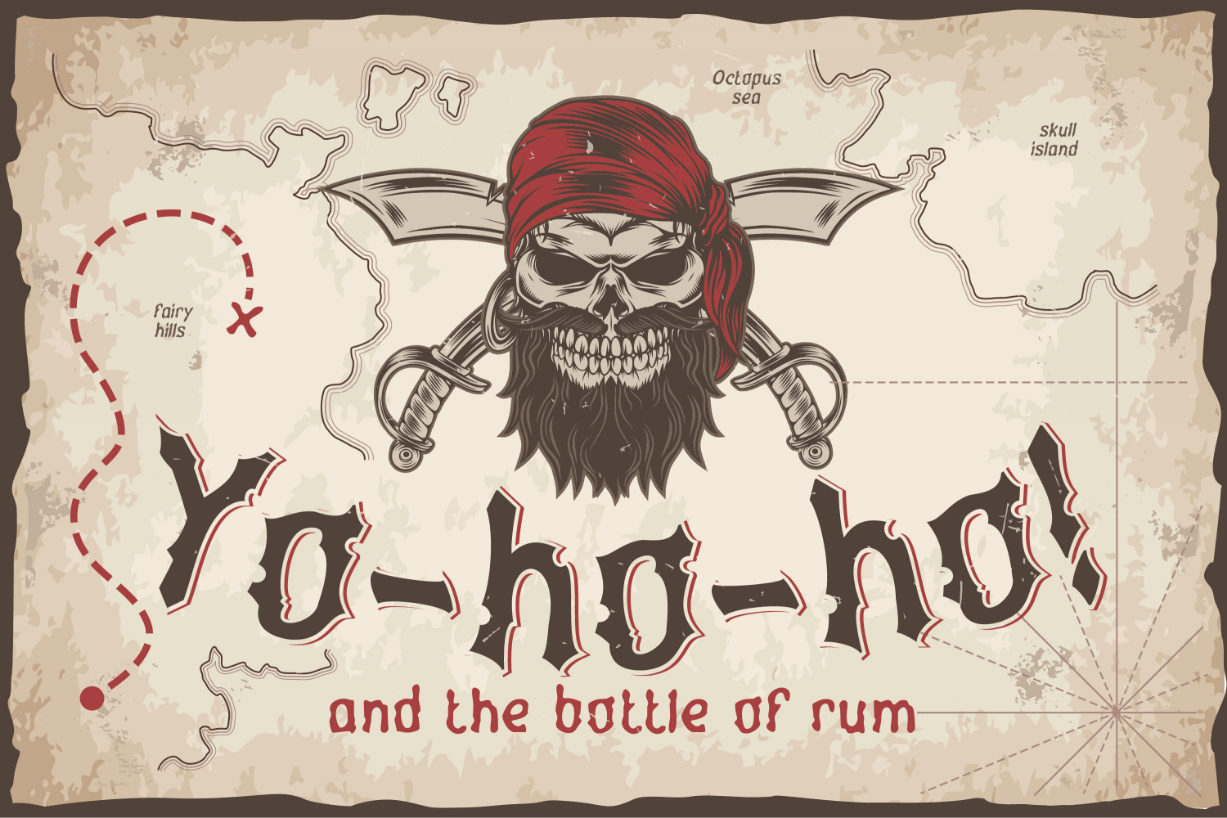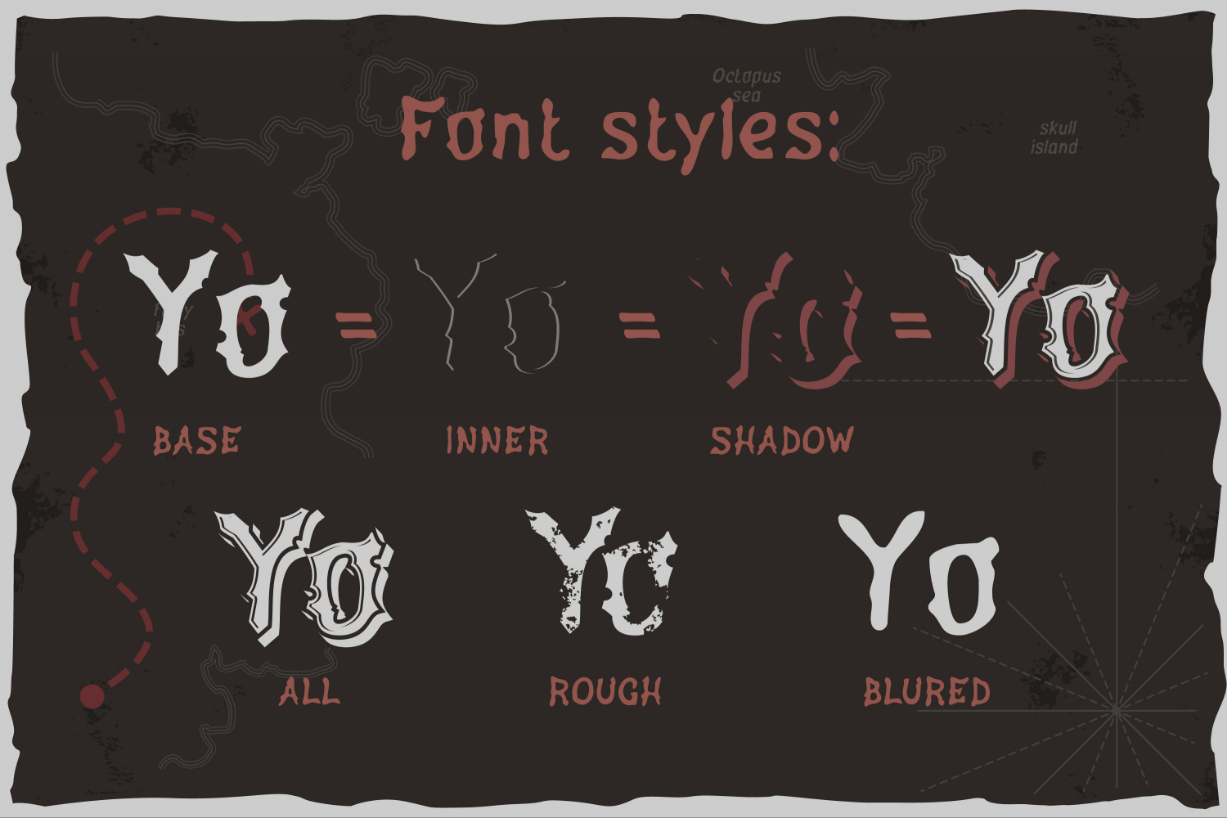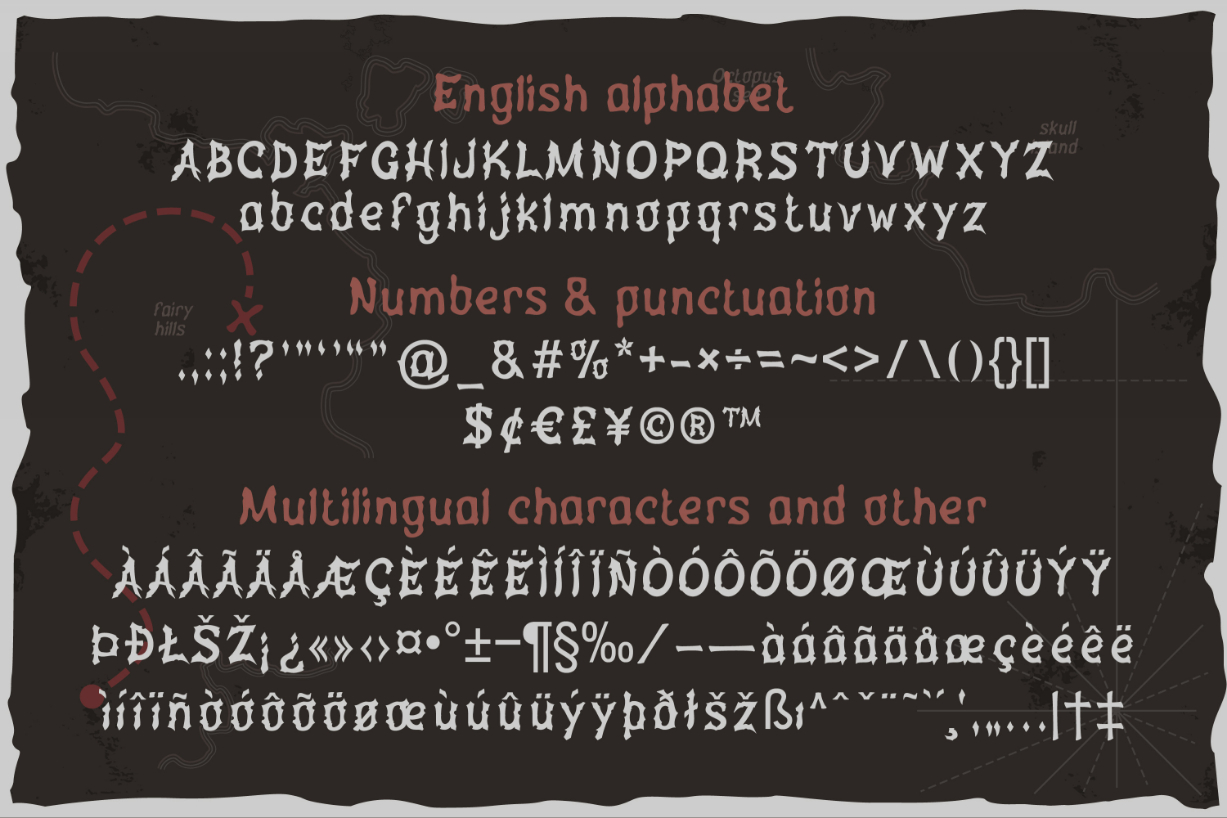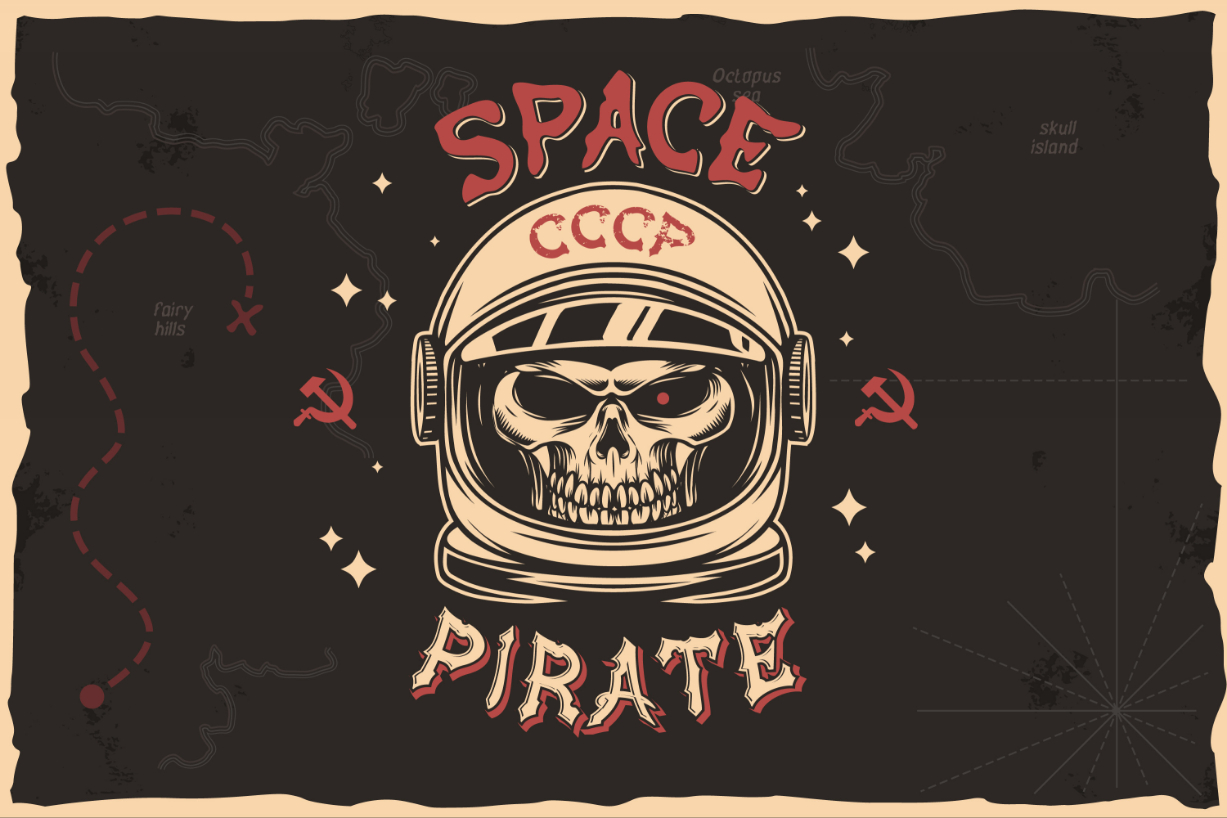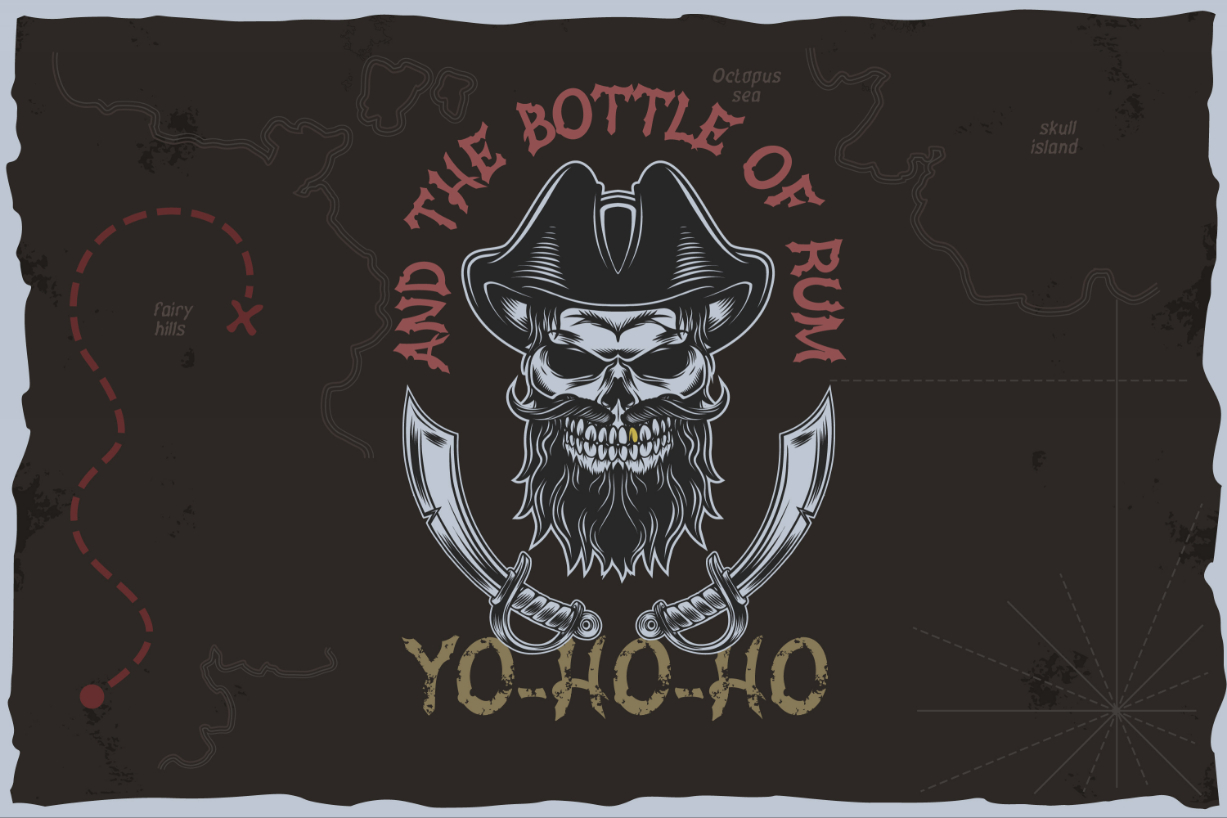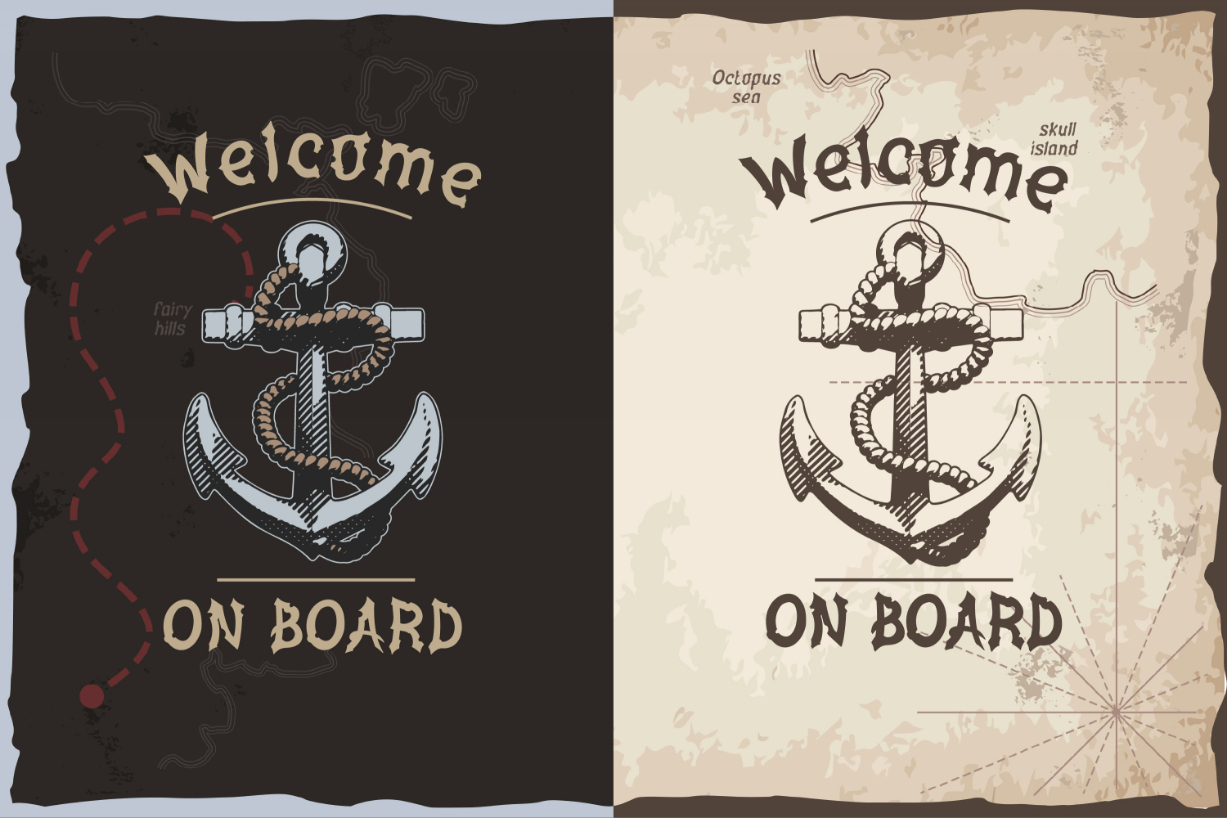
Yo-ho-ho Font
About Yo-ho-ho Font
Yo-ho-ho is a vintage styled, imposing blackletter font. Add it to your creative ideas, and notice how they instantly stand out.